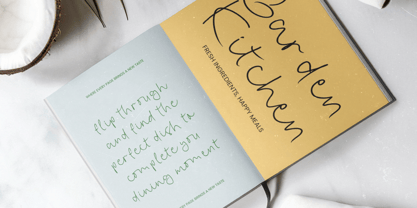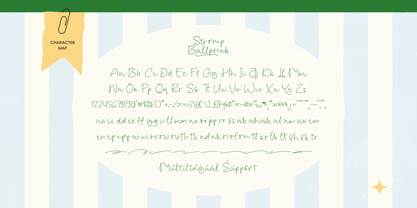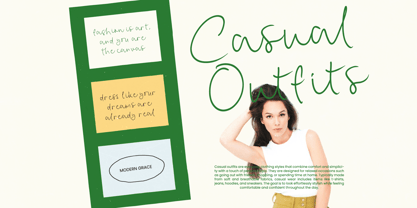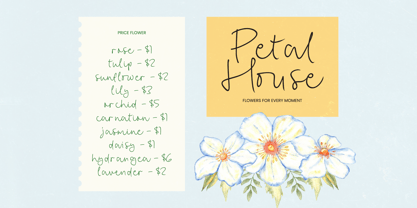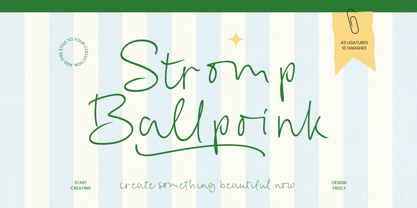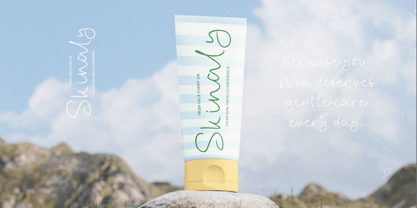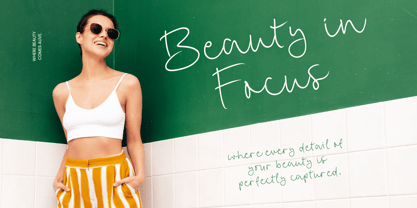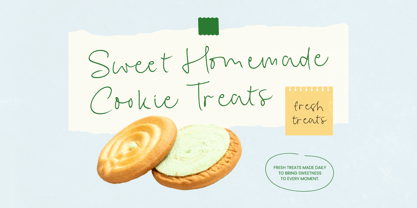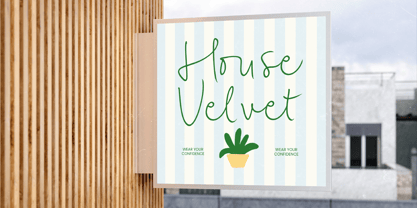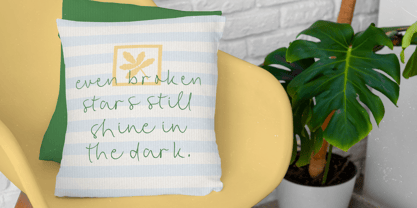
Stromp Ballpoink
La famille de polices Stromp Ballpoink a été conçue par Heru Utama Putra et publiée par Stylishtype Studio. Stromp Ballpoink contient 2 styles et options de package familial. En savoir plus sur cette famille
Stromp Ballpoink - Ballpoint Handwritten Font captures the organic handwritten charm of a classic ink pen, delivering a monolinear aesthetic that feels both personal and professional. Its casual elegance makes it an ideal choice for designers looking to inject a natural flow into their digital work, ensuring that every word resonates with a genuine, hand-drawn feel.
Unlocking unparalleled customization, this typeface offers a wealth of stylistic features that bring your text to life. Stromp Ballpoink - Ballpoint Handwritten Font is packed with 43 custom ligatures and 10 expressive swashes, allowing for a truly bespoke typography experience. These intricate details ensure that the font maintains a seamless script appearance, avoiding the repetitive look of standard digital types and providing a dynamic visual rhythm that enhances any composition.